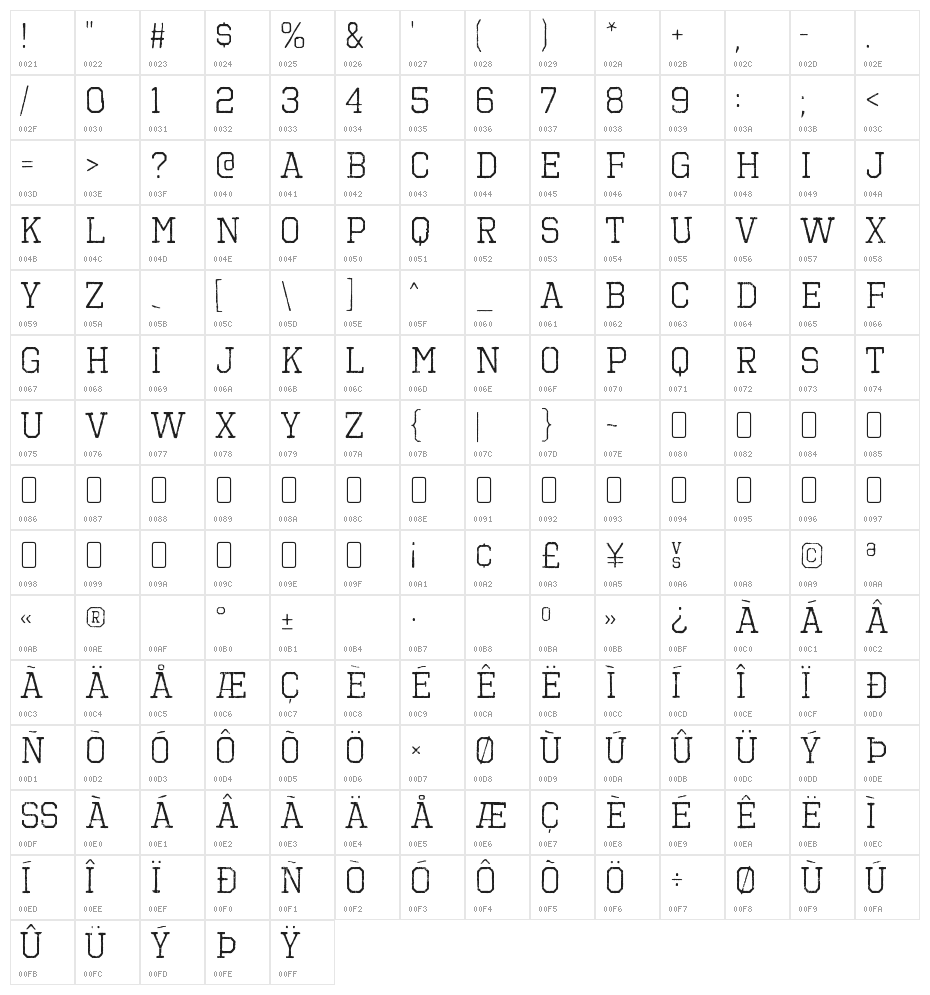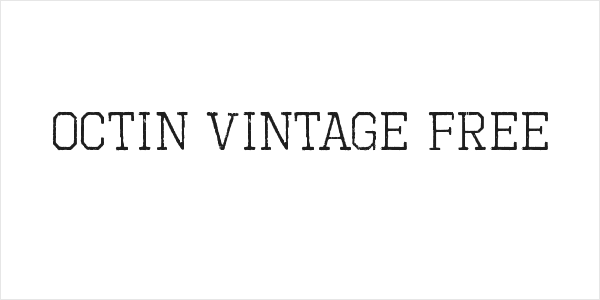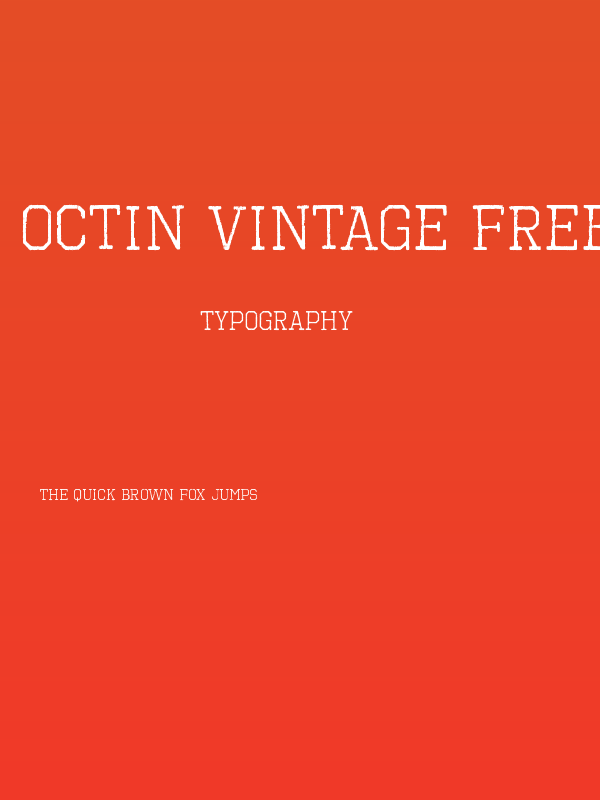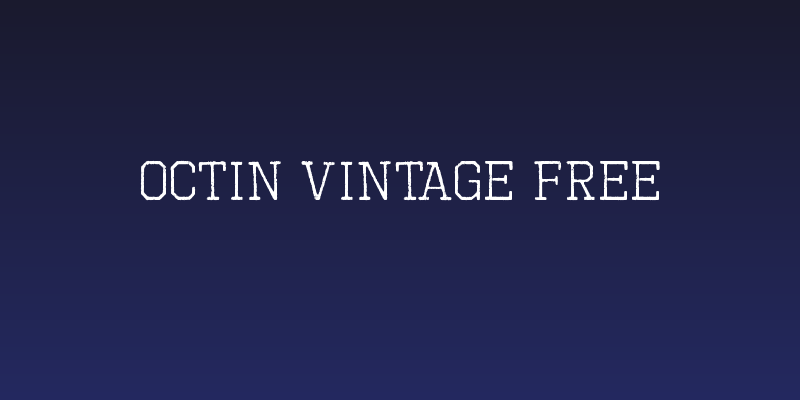
Octin Vintage Free Font
Octin Vintage Free Description
This font features a rugged, distressed appearance reminiscent of vintage typewriter or industrial print styles. The letters are bold and have a slightly uneven texture, giving them a worn, aged look. The uppercase letters are uniform in height, while the numbers and special characters maintain the same distressed aesthetic. The font's design evokes a sense of nostalgia and is ideal for projects that require a retro or industrial feel. Its boldness ensures readability while the textured finish adds character and uniqueness.
| Proposed Projects | Ideal for vintage-themed posters, industrial design projects, retro branding, and any creative work that requires a nostalgic touch. |